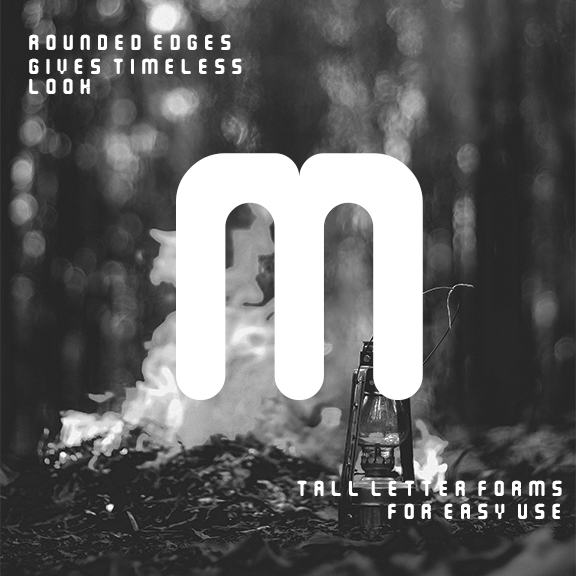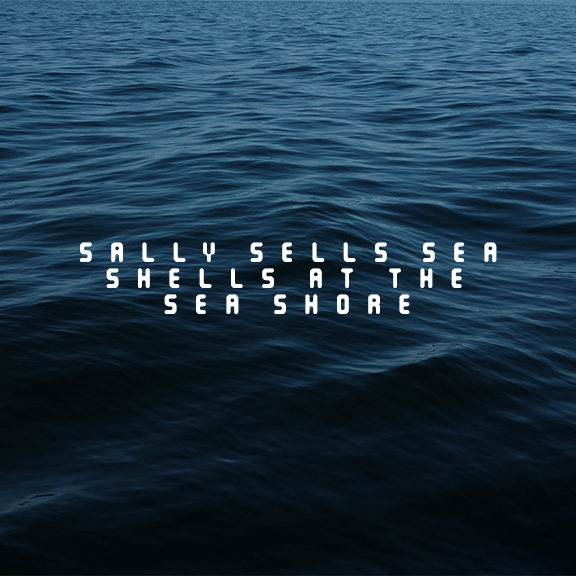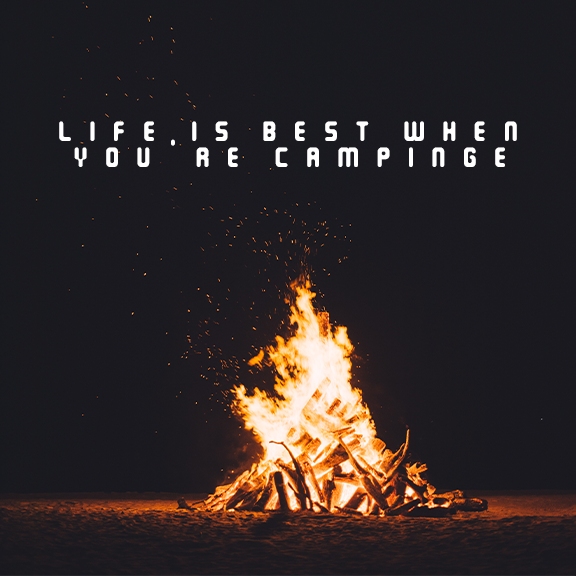
That's a strange way to make k (I mean the right part of it). Otherwise a good one; looks quite interesting with tight spacing
Well-Roundedby II_1ncredible